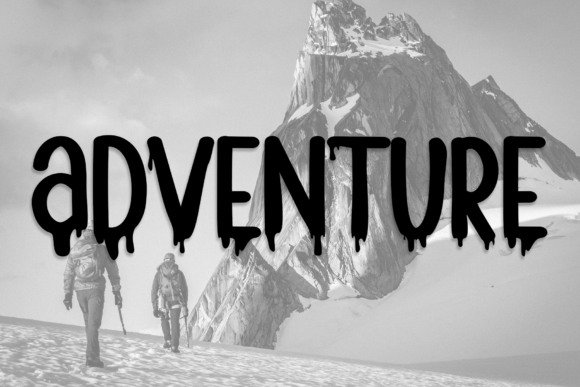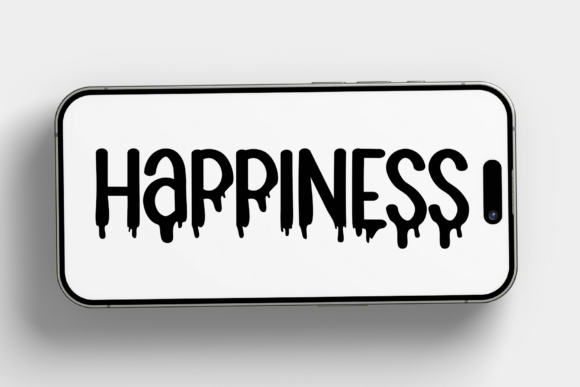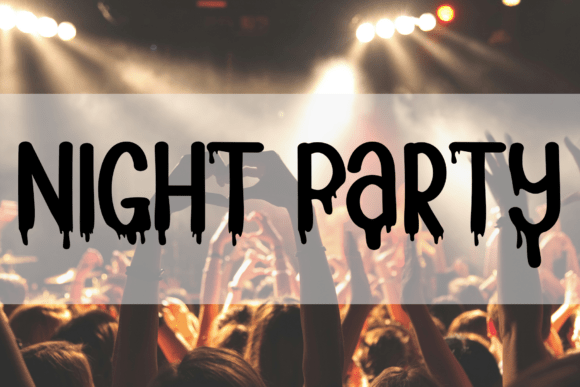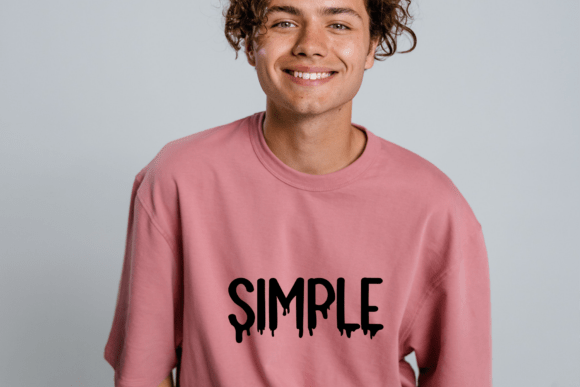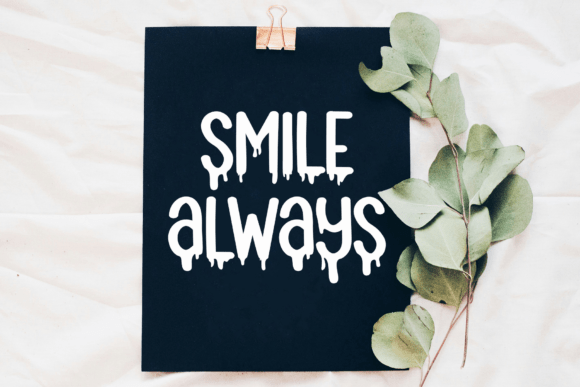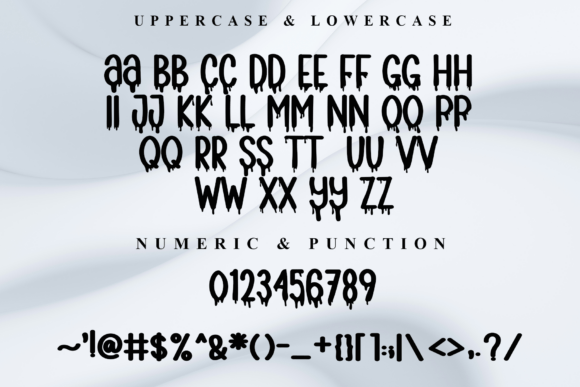
The Magic of Drip Font: Elevate Your Holiday Designs
It’s that time of the year again – the season of joy, giving, and endless design projects. I still remember the year I was tasked with creating a festive holiday card for a client’s family reunion. As I scrolled through my font library, I just couldn’t find the perfect fit. That was until I stumbled upon Drip Font, a merry and decorative typeface that instantly captured the spirit of the holiday season. In this article, I’ll share my experience with Drip Font, its features, and how to make the most of it in your designs.
An Honest Review of Drip Font
- ✨ Festive and whimsical design that’s perfect for holiday-themed projects
- ✅ PUA encoded for easy access to glyphs and ligatures
- 🎉 Highly versatile and can be used for greeting cards, gift tags, and more
- 📚 Extensive character set, including stylistic alternates and OpenType features
While Drip Font is an amazing addition to any design project, there are a few things to keep in mind:
- ⚠️ Some users may find the font a bit too ornate for certain projects
- 🤔 Limited use outside of holiday-themed designs, as it may not fit with other styles or themes
A Practical Guide to Using Drip Font
The Story Behind Drip Font
Drip Font was designed with the holiday season in mind. Its creator wanted to capture the magic and wonder of this special time of year in a decorative, yet readable typeface. With its whimsical flair and extensive character set, Drip Font is sure to bring a touch of enchantment to your designs.